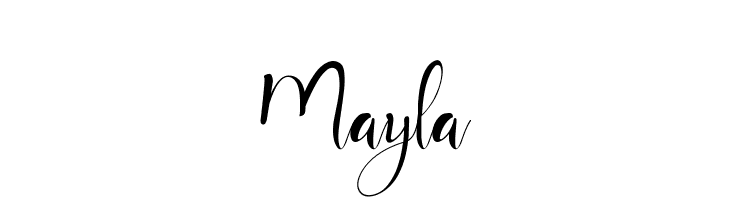
A playful and artistic script font with decorative swashes and a handwritten feel.
A bold, hollow, and geometric font with a modern, futuristic style.
A flowing, handwritten cursive font with elegant, connected letters.
A futuristic, geometric font with bold, rounded letterforms and circular cutouts.
A grunge-style serif font with an inline design and vintage texture.
A bold, geometric font with italicized characters enclosed in hexagons, offering a futuristic and industrial look.
A graceful and elegant script font with flowing curves and artistic flair.
A playful, hand-drawn font with bold, rounded strokes and a whimsical style.
A flowing, cursive script font with an elegant, handwritten style.
A playful and bold handwritten font with a smooth, rounded style.
设计师偏爱 Beliau FREE, perfect-Hollow-Inverse, The Quotes, Planet X and Castile Inline Grunge,因为其造型干净、适用范围广—— 从品牌识别到落地页、海报都能胜任。